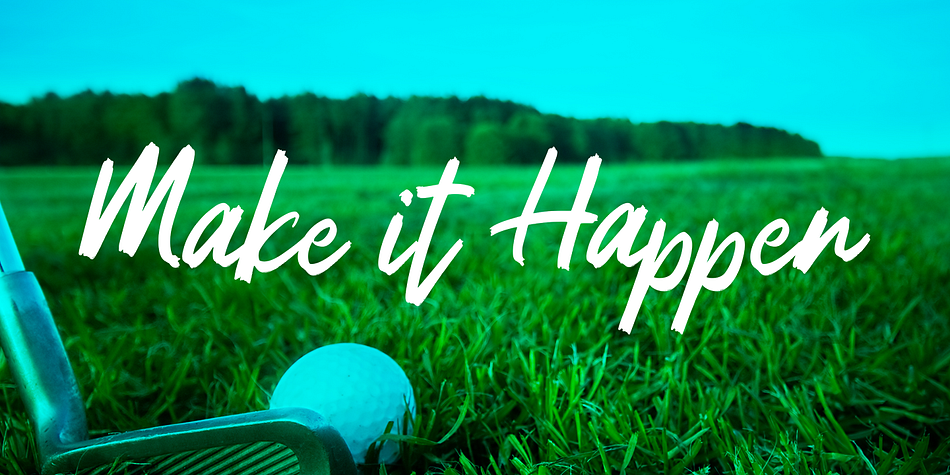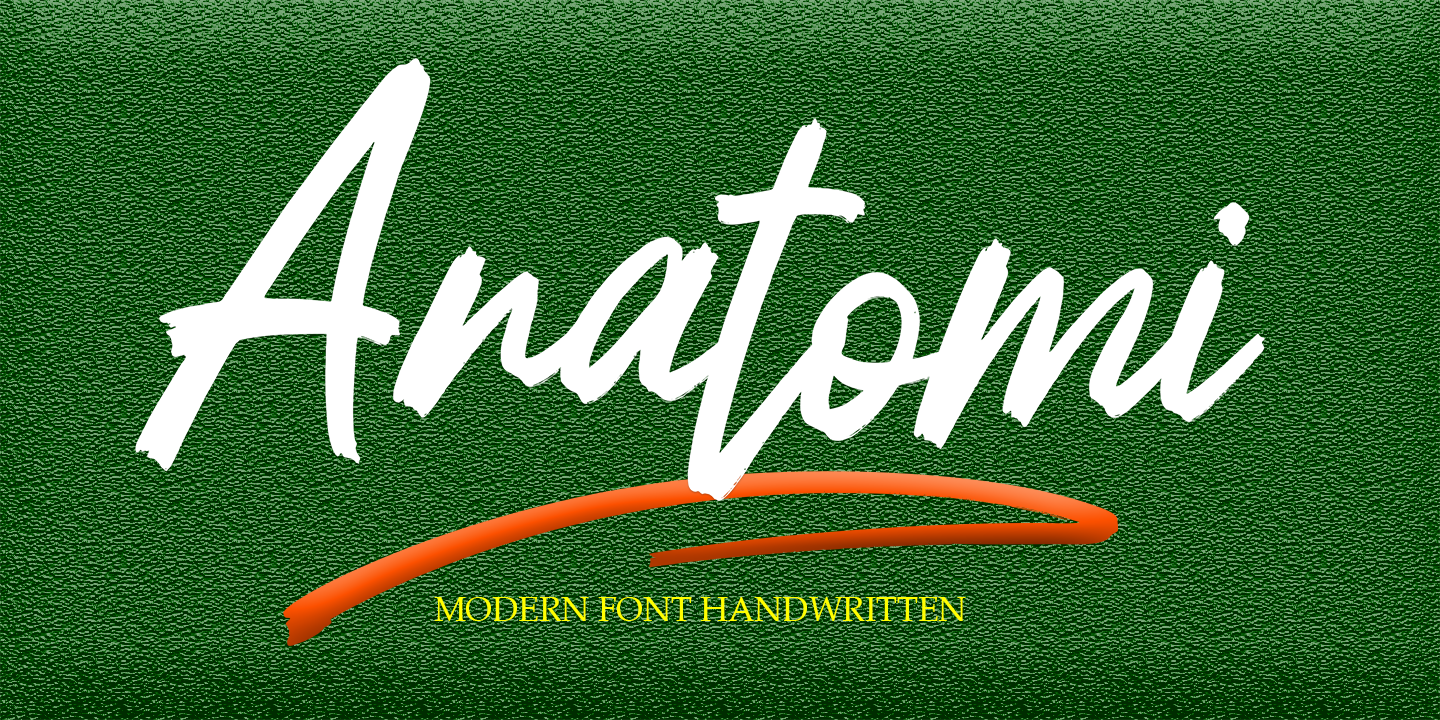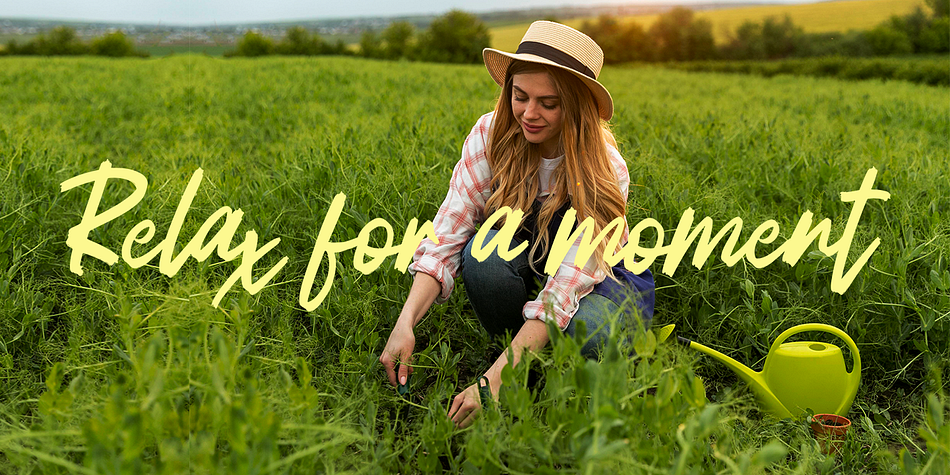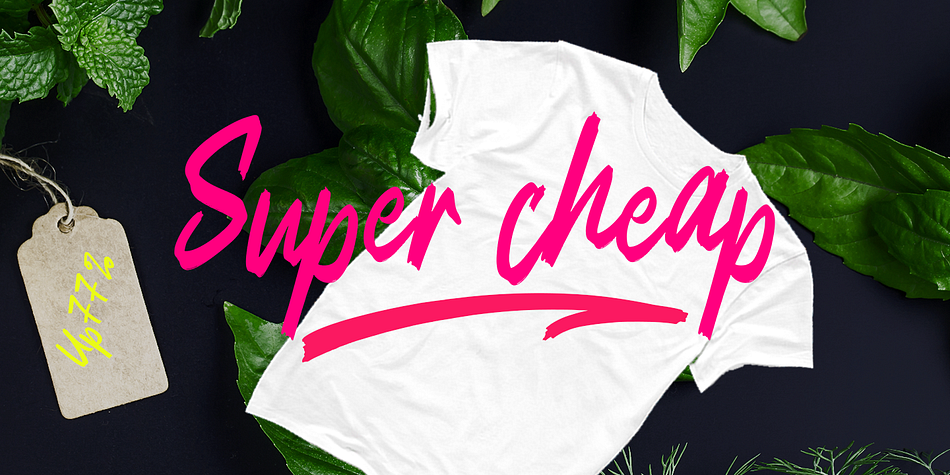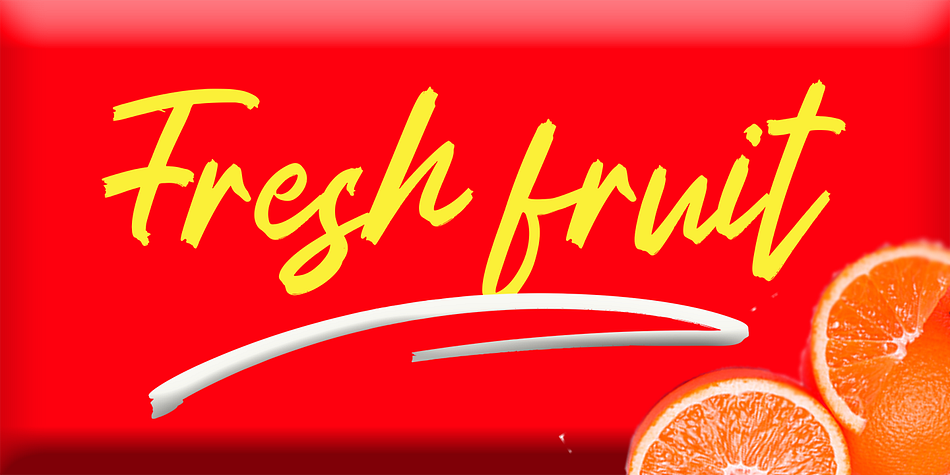
Anatomi
Anatomi is a brush script font family published by Gatype.
Anatomi is a textured brush font, a contemporary approach to design, naturally handmade and with underscores. It also has ligatures that make your design more attractive.
Anatomi includes a complete set of uppercase and lowercase letters,
Suitable for use in title design such as clothing, invitations, tittle books, stationery designs,as well as multi-language support, numbers, punctuation, ligatures,extra swash. quotes, branding, logos, greeting cards, t-shirts, packaging designs, posters and more.